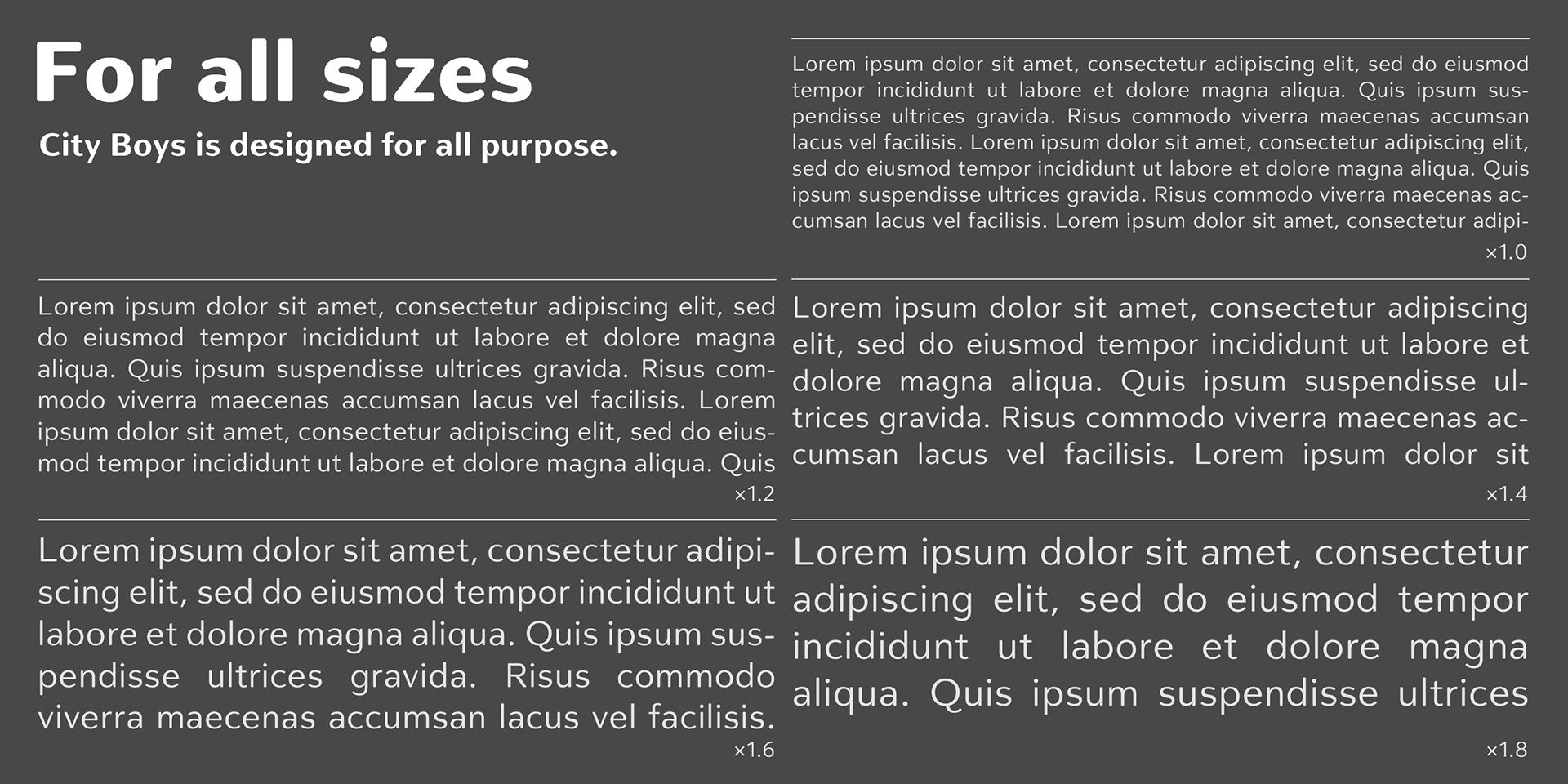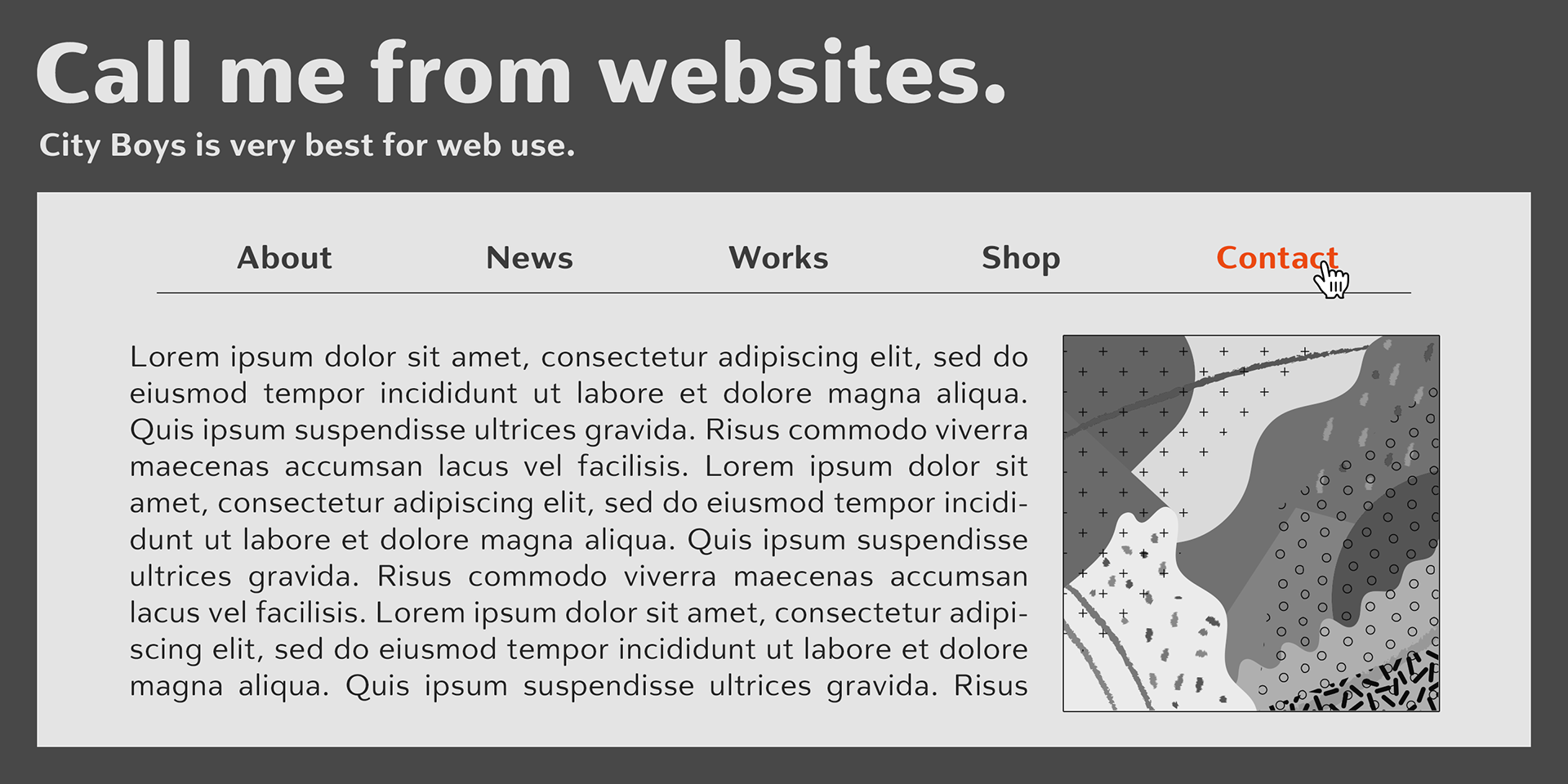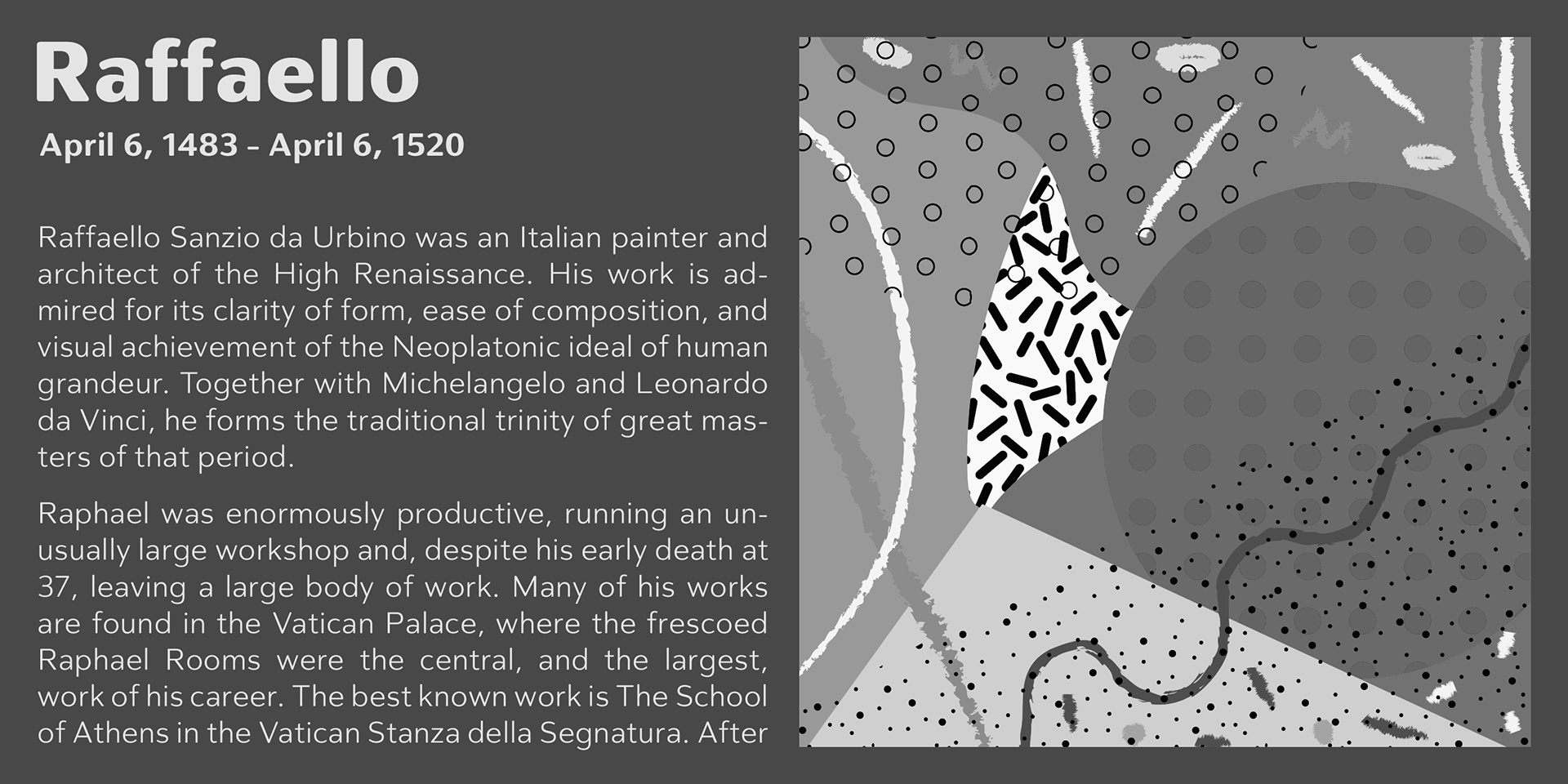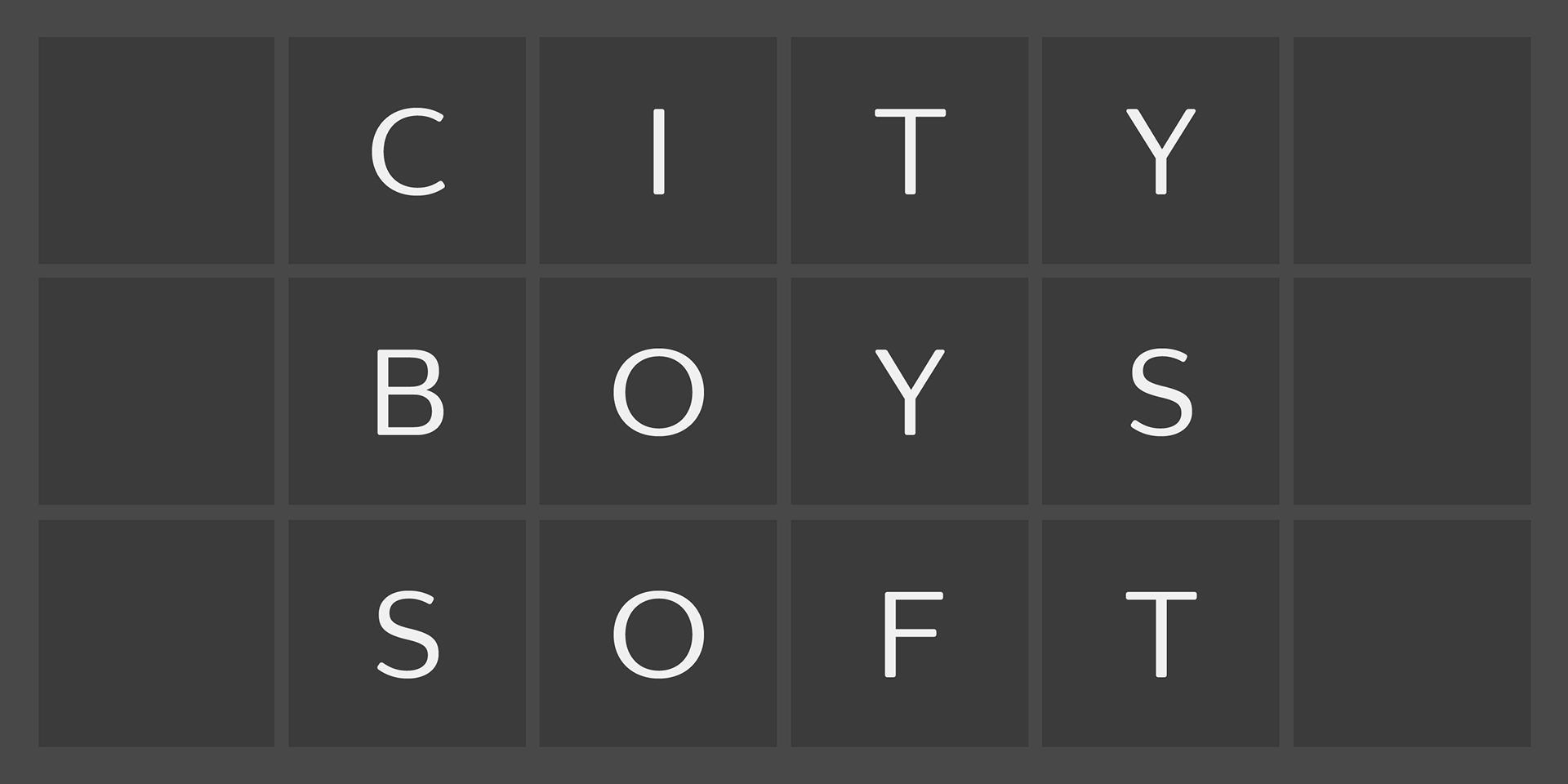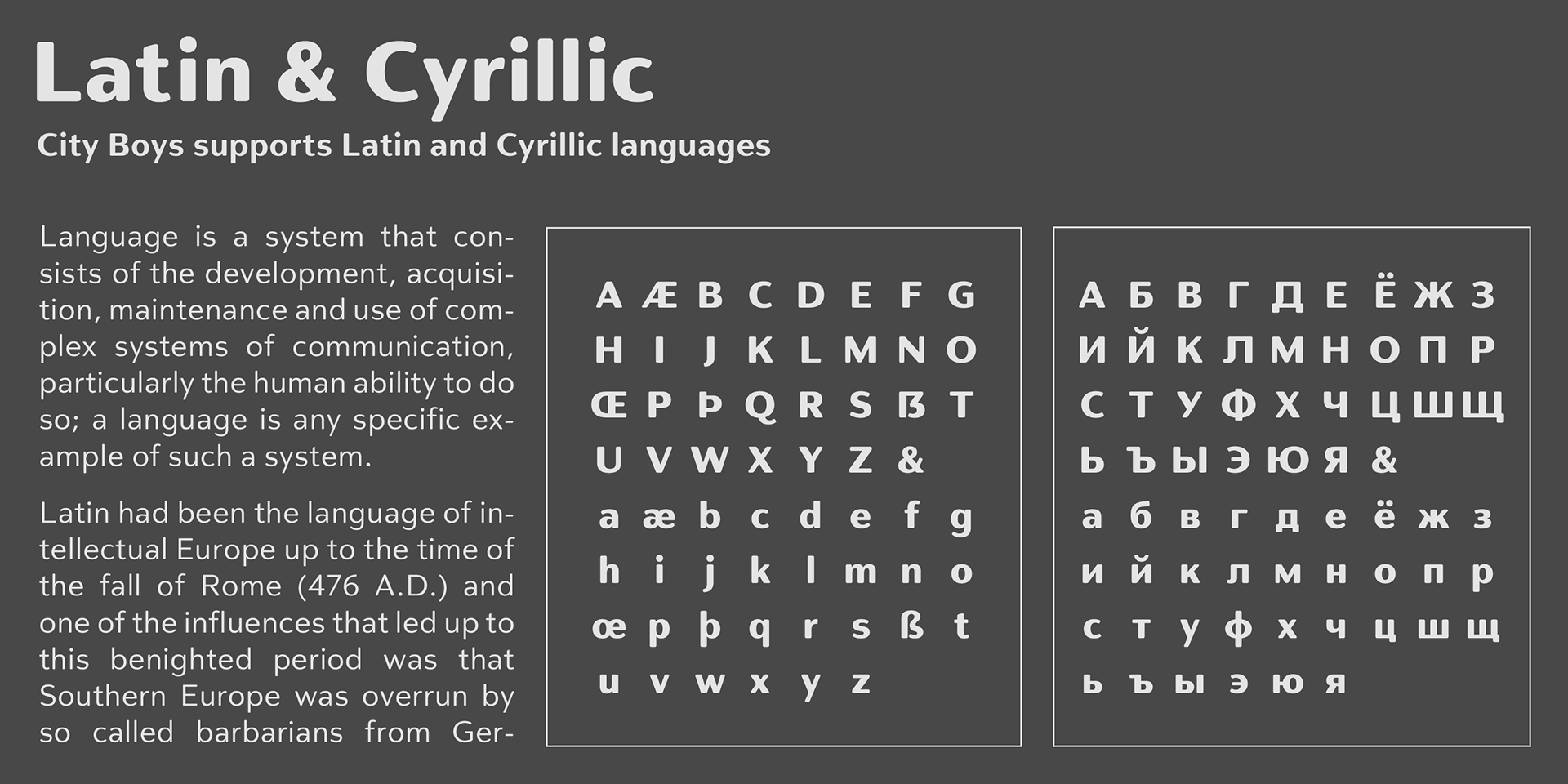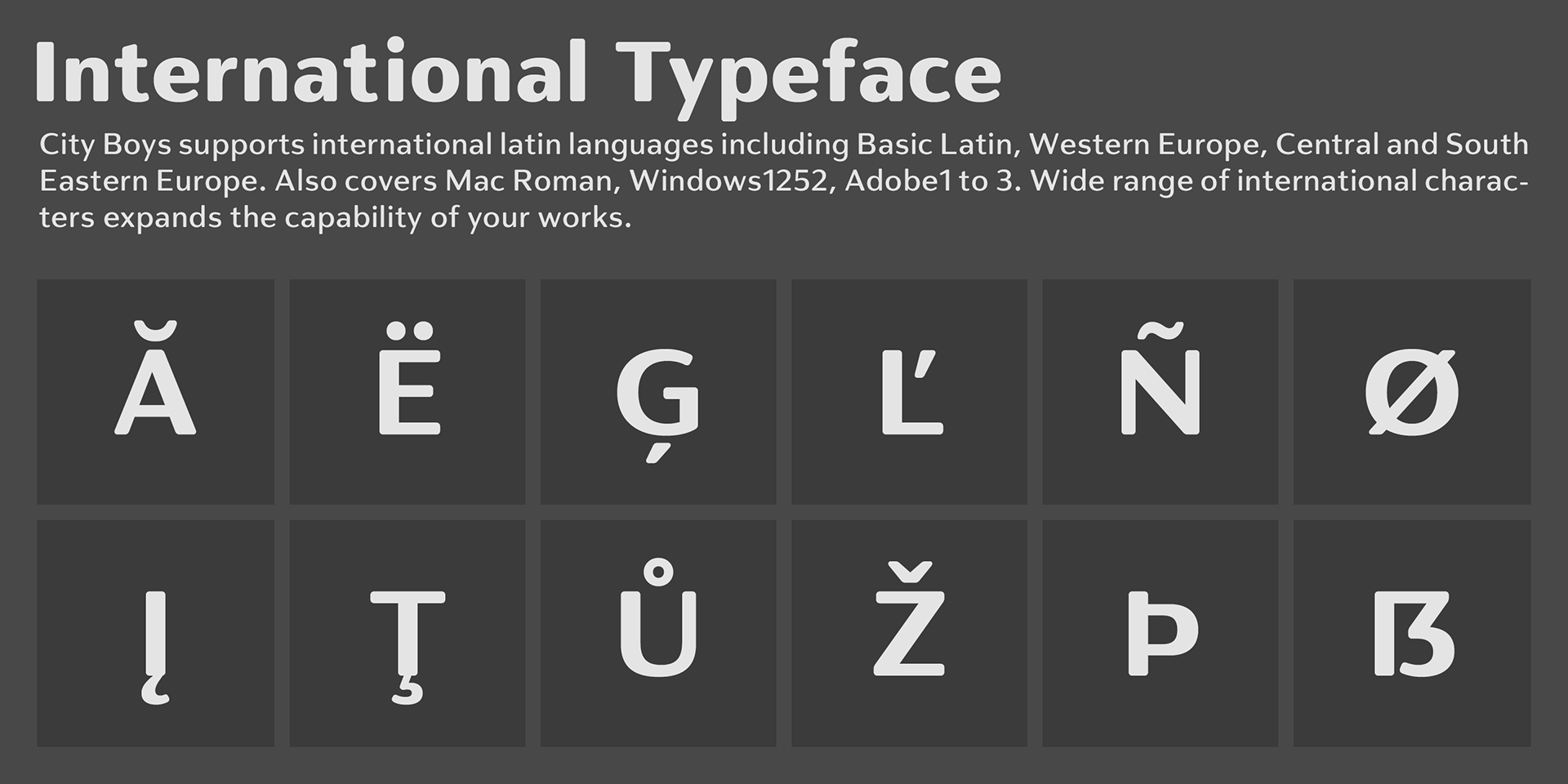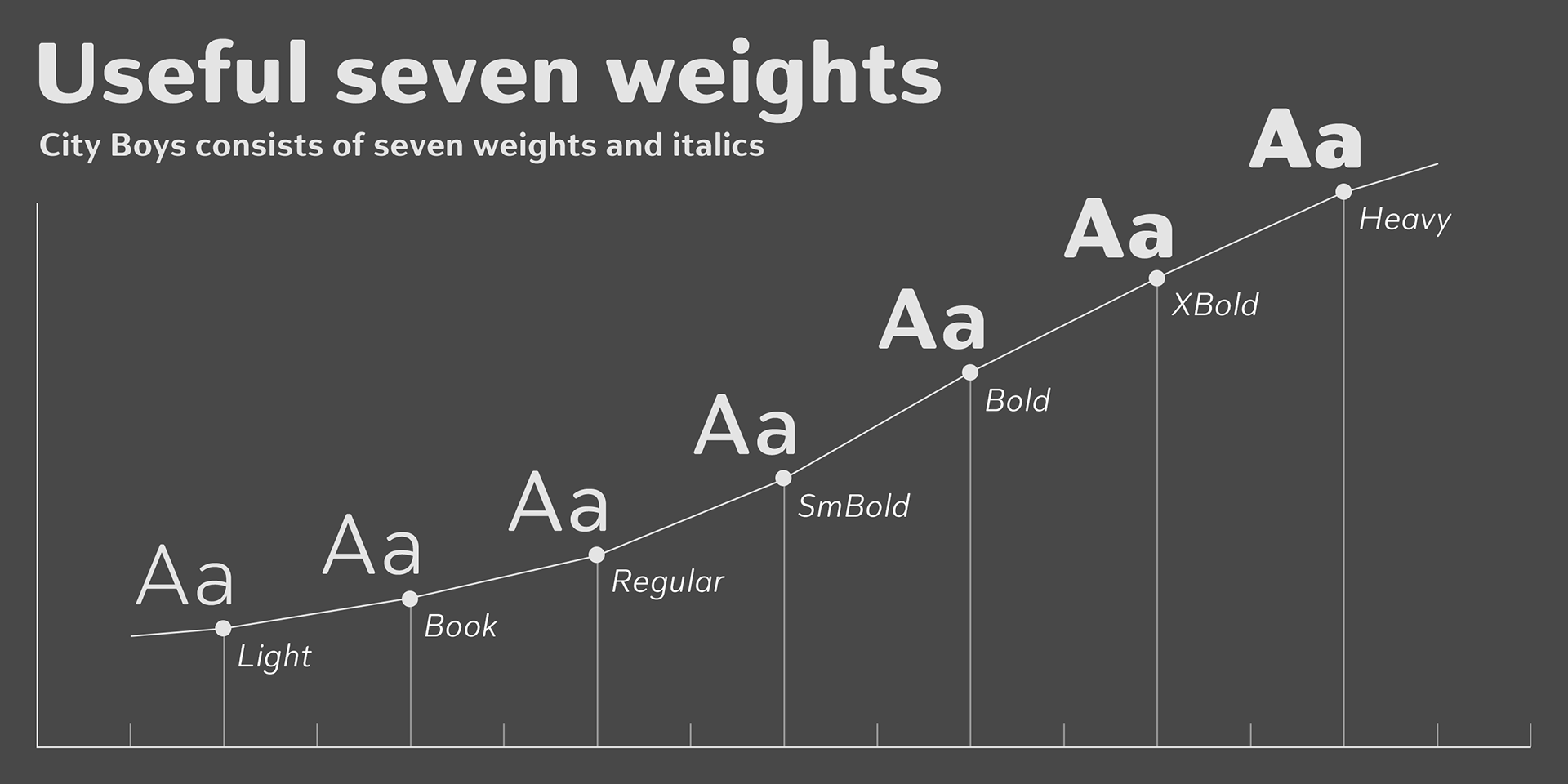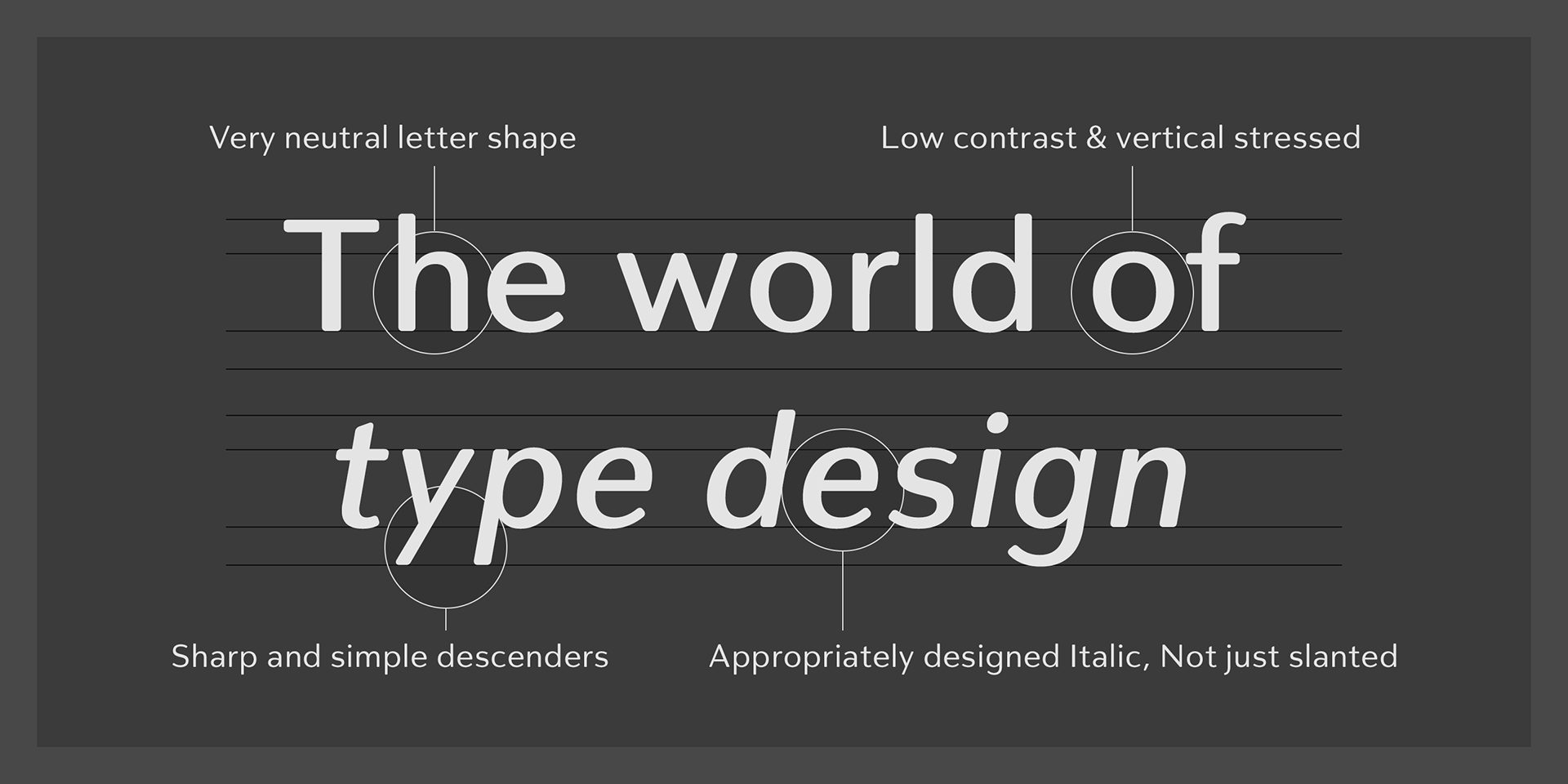
City Boys Soft
City Boys Soft is a fashionable, contrasted sans-serif typeface designed for versatility and modern appeal, making it suitable for nearly any design context.
Its letterforms are basic, natural, and neutral, built on a clean, well-balanced skeleton that adapts seamlessly to a wide range of applications. While the structure is somewhat humanist, the typeface maintains a vertical stress, giving it a modern, refined, and sophisticated character.
The contrast ratio has been carefully tuned for contemporary use—whether in web design, digital interfaces, printed materials, or branded merchandise—striking a balance between style and legibility.
City Boys Soft includes 7 weights, each with matching italics, providing flexibility from headlines to body text.
It supports a broad set of international Latin languages and basic Cyrillic, including Basic Latin, Western, Central, and South-Eastern European scripts. Encoding support includes Mac Roman, Windows-1252, and Adobe Latin 1–3, ensuring smooth compatibility across platforms and systems.
For those seeking a sharper, more defined look, the original version—City Boys—features standard corners and offers a crisper visual alternative to the softened feel of City Boys Soft.